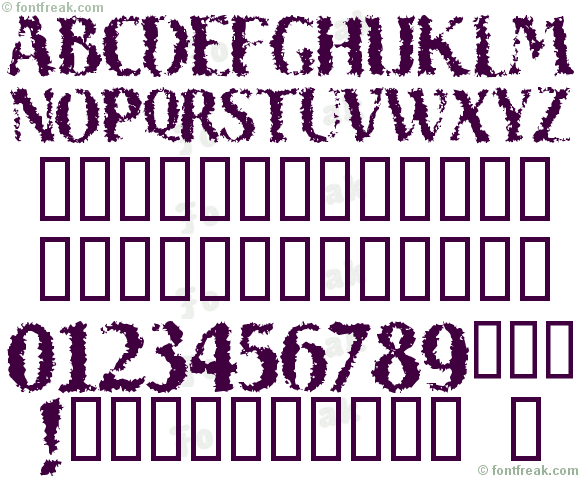
Sand
The Sand font by Millan is a captivating display typeface that effortlessly combines artistic flair with readability. This font is categorized as a decorative typeface, making it an ideal choice for projects that require a unique and eye-catching appearance. The Sand font features a medium stroke weight with moderate contrast, giving it a bold presence without sacrificing clarity. Its spacing is well-balanced, allowing for easy legibility, even at larger sizes. The design incorporates playful, organic lines that evoke a sense of movement, reminiscent of sand dunes sculpted by the wind.
This font is particularly well-suited for a variety of creative applications. It's perfect for wedding invitations, where its distinct style can set a romantic tone. Additionally, the Sand font shines in movie posters, helping to convey the theme or genre with its artistic flair. Restaurant menus can also benefit from its unique aesthetic, drawing attention to special dishes and enhancing the dining experience. Content creators looking to add a touch of creativity to social media graphics or blog headers will find this font an excellent choice as well.
Targeting graphic designers, small business owners, and content creators, the Sand font offers versatility and charm. Its ability to stand out while remaining approachable makes it a fantastic addition to any designer's toolkit.